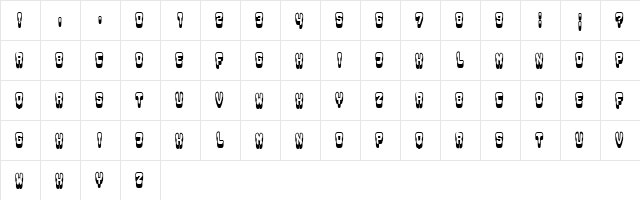
Groowing Regular
Design Context for Groowing Typeface
Groowing is a composed and adaptable typeface that performs quietly and consistently across a wide range of design contexts.